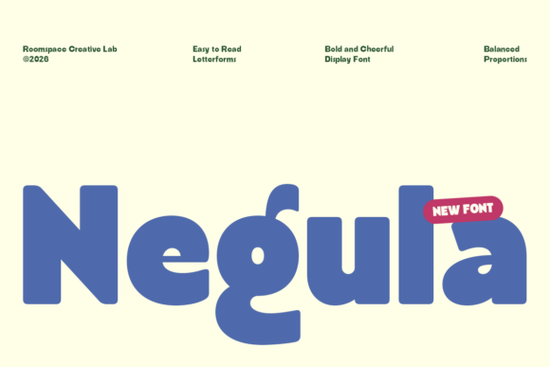
If you're looking for a font that feels warm and welcoming something that instantly makes your design feel more personal and inviting Negula Font is worth exploring. It’s a rounded display typeface with soft curves and a bold, friendly presence, perfect for projects where approachability matters. Whether you’re designing packaging for a bakery, creating graphics for a kids’ toy brand, or building social media content for a family-run business, Negula adds a touch of modern charm without feeling overly childish.
Why choose a rounded display font like Negula?
Rounded fonts naturally feel gentler than sharp-edged ones. They’re easier on the eyes and often associated with trust, playfulness, and creativity. Negula leans into this by combining full, smooth curves with a strong, legible structure. This balance means it works well at larger sizes like headlines, posters, or logos while still feeling light and airy. It’s not just cute; it’s functional for branding that wants to stand out without shouting.
Where can you use Negula Font in real projects?
Think beyond just logos. Here are some practical uses:
- Food packaging – A coffee shop or artisanal snack brand can use Negula to make labels feel handcrafted and approachable.
- Children’s products – From storybooks to nursery decor, its soft look fits well with themes of kindness and imagination.
- Social media graphics – Use it for quotes, announcements, or campaign visuals where warmth matters more than formality.
- Family-oriented businesses – Daycares, pet services, or local boutiques can use it to reflect their community-focused values.
- Posters and flyers – Great for events, art shows, or seasonal promotions where a friendly tone helps draw attention.
You’ll find that Negula pairs especially well with clean backgrounds or pastel color schemes. It doesn’t compete with illustrations or photos it enhances them. If you’ve been using stiff or overly technical fonts, switching to something like Negula can make your work feel more human.
How does Negula compare to other popular sans-serif fonts?
While fonts like Matcha Cream, Ogakure, and Rutgers bring their own unique vibes some more minimalist, others more structured Negula stands out for its consistent friendliness. It’s less about precision and more about personality. If you're drawn to fonts like Straw Berry, which also leans into playful elegance, you’ll likely appreciate how Negula maintains clarity while still feeling expressive.
For designers who value both style and usability, Negula offers a reliable option when you need a typeface that says “we care” without saying a word.
Is Negula easy to work with for print and digital use?
Yes especially if you're working on print-on-demand items, social media posts, or website headers. The font handles scaling well, so it looks crisp whether it’s on a small sticker or a large banner. It supports multiple languages and includes a range of weights and styles, making it flexible across different project needs.
Design isn’t just about looks it’s about how people feel when they see your work. With Negula, you’re giving your audience a moment of comfort, connection, and joy. That’s something worth building with.